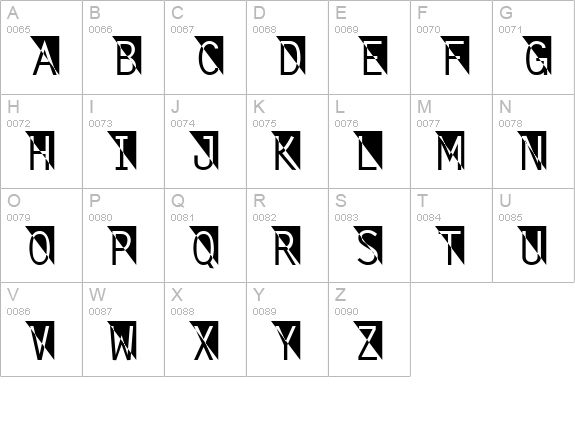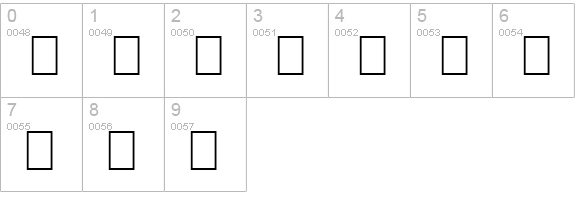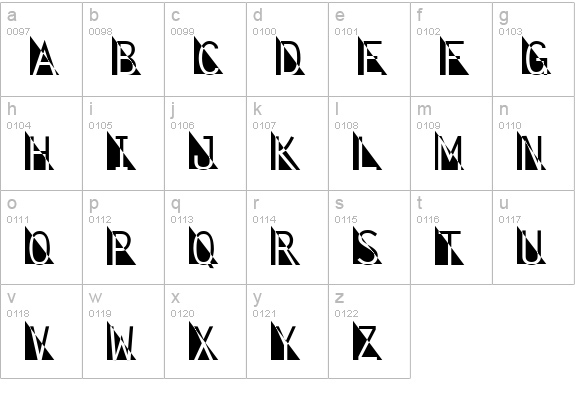
Fantomet 2 Font Details
Fantomet 2 font is a modern and stylish typeface that exudes elegance and sophistication. With its sleek lines and unique design, this font is perfect for adding a touch of class to any project. Whether you're designing a logo, creating a website, or working on a print project, Fantomet 2 font is sure to make a statement. What's even better is that Fantomet 2 font is completely free to download at FontsMarket.com. That's right, you can add this beautiful font to your collection without spending a dime. So why wait? Download Fantomet 2 font today and take your designs to the next level.